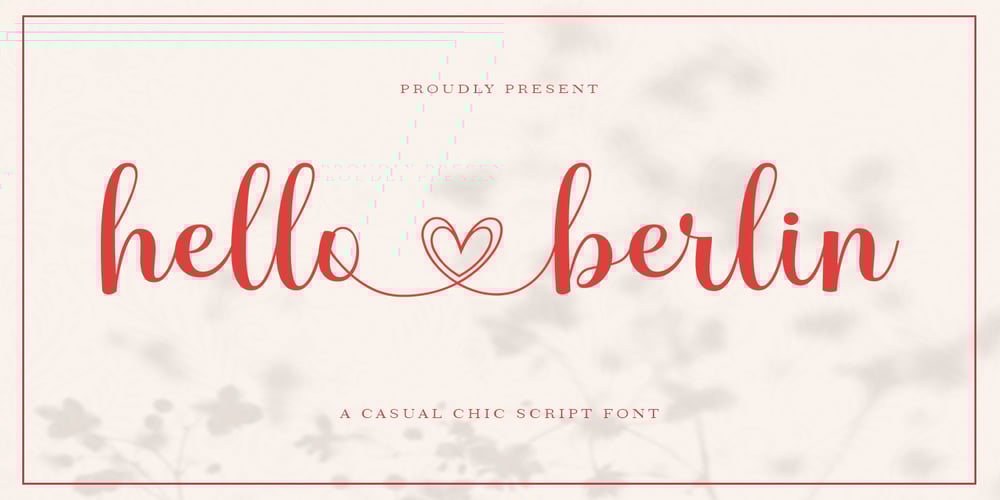
Hello Berlin Font Family was designed by Has Rizal and published by Hrz Studio. Hello Berlin contains 1 styles and family package options. Hello Berlin is a sweet, all round and flexible handwritten font. Warm, romantic and jolly, this font will turn each of your project ideas into real works of art. This font is PUA encoded which means you can access all of the glyphs and swashes with ease!